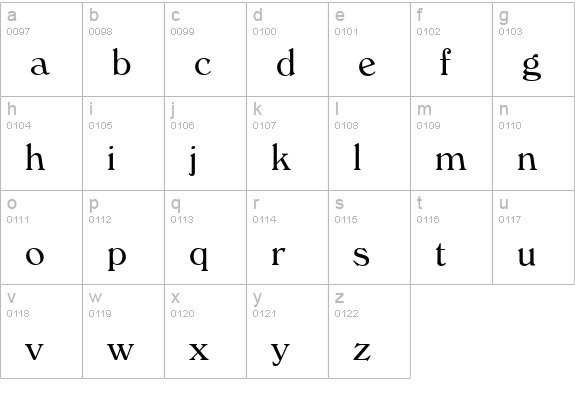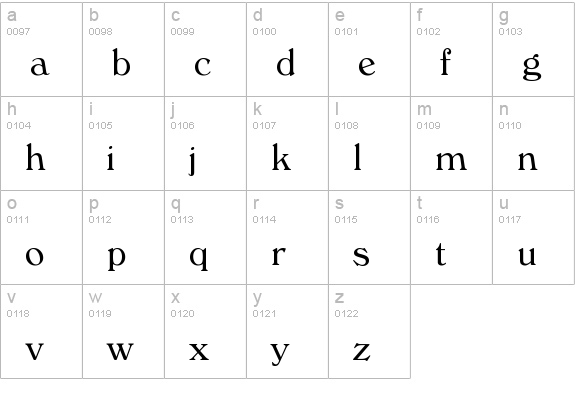
Whitehall-Regular Font Details
Whitehall-Regular is the standard, neutral variant in the Whitehall typeface family \xE2\x80\x94 well suited to general body text, paragraphs, and standard typographic work.
Whitehall-Regular is a timeless and elegant font that exudes sophistication and clarity. With its clean lines and modern aesthetic, this versatile typeface is perfect for a wide range of design projects, from branding to editorial layouts. The simple yet refined letterforms make Whitehall-Regular a go-to choice for designers looking to add a touch of sophistication to their work. Best of all, Whitehall-Regular is available for free download at FontsMarket.com. This means that you can easily access and use this beautiful font in your projects without any cost. Whether you're working on a personal project or a professional design, Whitehall-Regular is sure to elevate your work with its classic and stylish appeal. Download Whitehall-Regular today and see for yourself the impact this font can make on your designs.